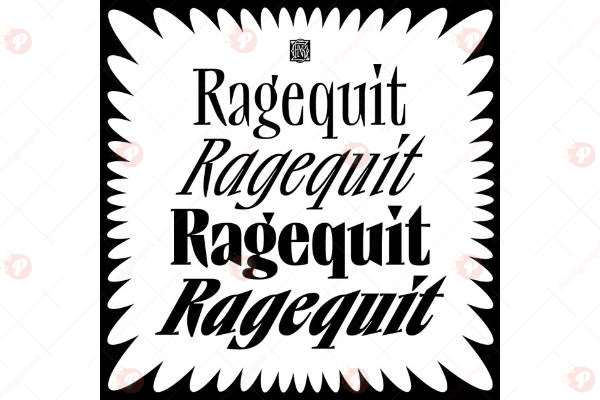
The Ragequit Font Free is a bold and edgy display typeface designed especially for gaming, esports, and creative digital projects. Its strong, sharp, and modern style makes it perfect for logos, gaming posters, YouTube thumbnails, Twitch overlays, event branding, and social media graphics
With its powerful and aggressive look, Ragequit Font Free captures the intensity of esports and gaming culture, giving your designs a fearless and dynamic vibe. Whether you’re building a gaming brand, team logo, or streaming graphics, this font ensures maximum impact.
Typeface: Display / Gaming / Modern
Style: Bold / Strong / Aggressive / Dynamic
Perfect for: Gaming Logos, Esports Branding, Posters, YouTube Thumbnails, Twitch Graphics, Event Branding, Social Media Visuals